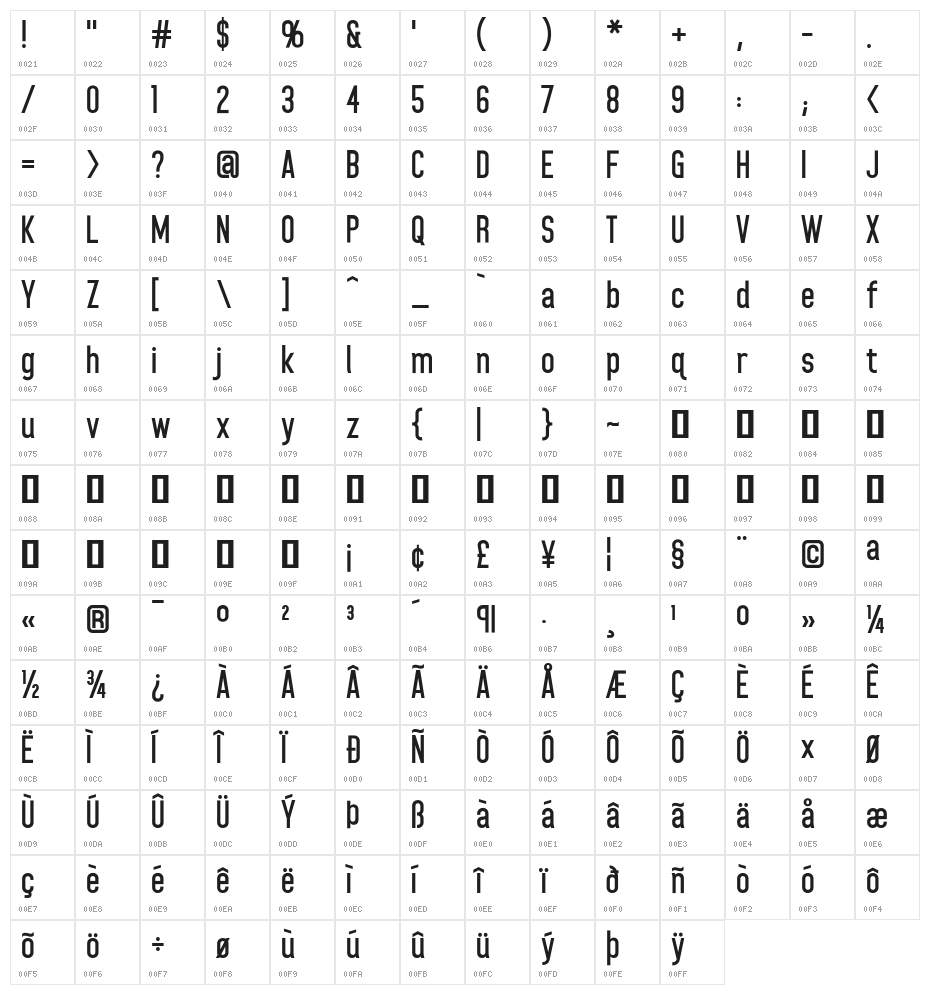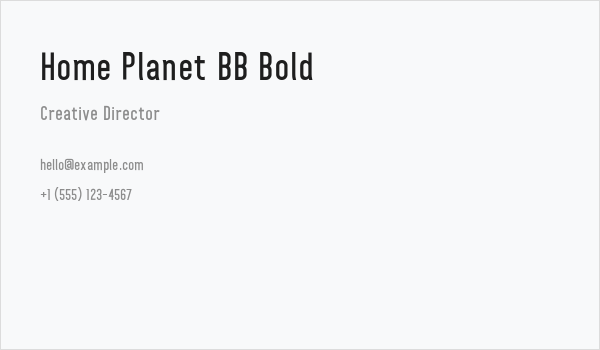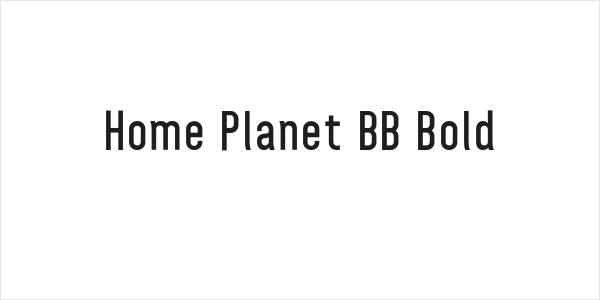
Home Planet BB Bold Font
Home Planet BB Bold Description
This font features a bold and modern sans-serif style with clean, straight lines and uniform stroke widths. The uppercase and lowercase letters maintain a consistent height and width, providing a balanced and harmonious appearance. The numerals are clear and easy to read, while the special characters are distinct and well-defined. This font's boldness makes it highly legible, even at smaller sizes, and its straightforward design lends itself well to a variety of applications.
| Proposed Projects | Ideal for branding, headlines, posters, and digital media where a strong, modern presence is desired. |